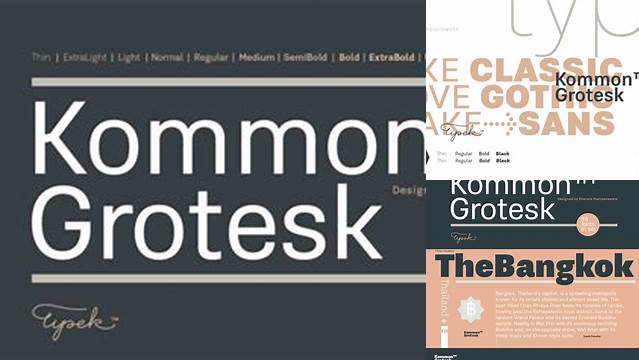
1. What is Kommon Grotesk Bold and Why Should You Care?
So, what exactly is Kommon Grotesk Bold? In a nutshell, it's a modern, sans-serif typeface known for its clean lines, strong presence, and versatility. Imagine a font that can make your headlines pop, your body text readable, and your entire design project look effortlessly cool. That's Kommon Grotesk Bold for you! It's a favorite among designers for its bold weight, making it perfect for grabbing attention. Think of it as the rockstar of fonts – it's confident, stylish, and knows how to make an entrance.
Why should you care? Well, if you're anything like me, you're always looking for ways to make your designs stand out. Whether you're a seasoned graphic designer, a budding social media guru, or just someone who loves creating cool stuff, having access to high-quality fonts is a must. Kommon Grotesk Bold is not just any font; it's a statement. It adds a touch of sophistication and modernity to any project, and the best part? It's freely available! This means you can use it for both personal and commercial projects without worrying about licensing fees. This opens up a world of possibilities, from creating stunning logos to designing eye-catching websites and everything in between. With Kommon Grotesk Bold, your creative potential is limitless. Its clear and readable design makes it ideal for various applications, including branding, editorial design, and web design. The bold weight ensures that your text is always visible and impactful, making it perfect for headlines, titles, and other important elements. This font is not just a tool; it's an asset that can significantly elevate the quality and professionalism of your work. So, why not give it a try and see the difference it makes? You might be surprised at how much it can enhance your designs and attract your audience.
3. Key Features and Characteristics of Kommon Grotesk Bold
Let's take a closer look at what makes Kommon Grotesk Bold so special. This font isn't just about being bold; it's about having a well-designed, modern aesthetic that works beautifully in various applications. One of its most notable features is, well, its boldness! The thick strokes ensure that your text will always stand out, making it perfect for headlines, titles, and anything else that needs to grab attention. It’s designed to be eye-catching and easily readable, even at a distance or on a screen.
The font also has a clean, modern look due to its sans-serif design. This means it doesn't have the small decorative strokes (serifs) at the end of each letter, giving it a sleek and contemporary feel. This makes it highly versatile and suitable for a wide range of design styles, from minimalist to more elaborate projects. Kommon Grotesk Bold also boasts excellent readability. While the bold weight is primarily for display purposes, the clear and distinct letterforms make it surprisingly easy to read, even in slightly longer text blocks. This is crucial for any font, as it needs to look good while being functional. Moreover, Kommon Grotesk Bold often comes with a comprehensive character set. It includes all the necessary letters, numbers, punctuation marks, and special characters you'll need for your projects. A comprehensive character set ensures that you can use the font seamlessly across different languages and designs. The versatility of Kommon Grotesk Bold is a major plus. Because of its clean lines and bold presence, it works well in a wide variety of projects, from logos and branding to website designs and print materials. Its ability to adapt to different styles and applications makes it a go-to choice for many designers. Lastly, this font is known for its geometric construction, meaning the letters are based on simple geometric shapes. This results in a balanced and harmonious appearance, making the font visually appealing and easy on the eyes.